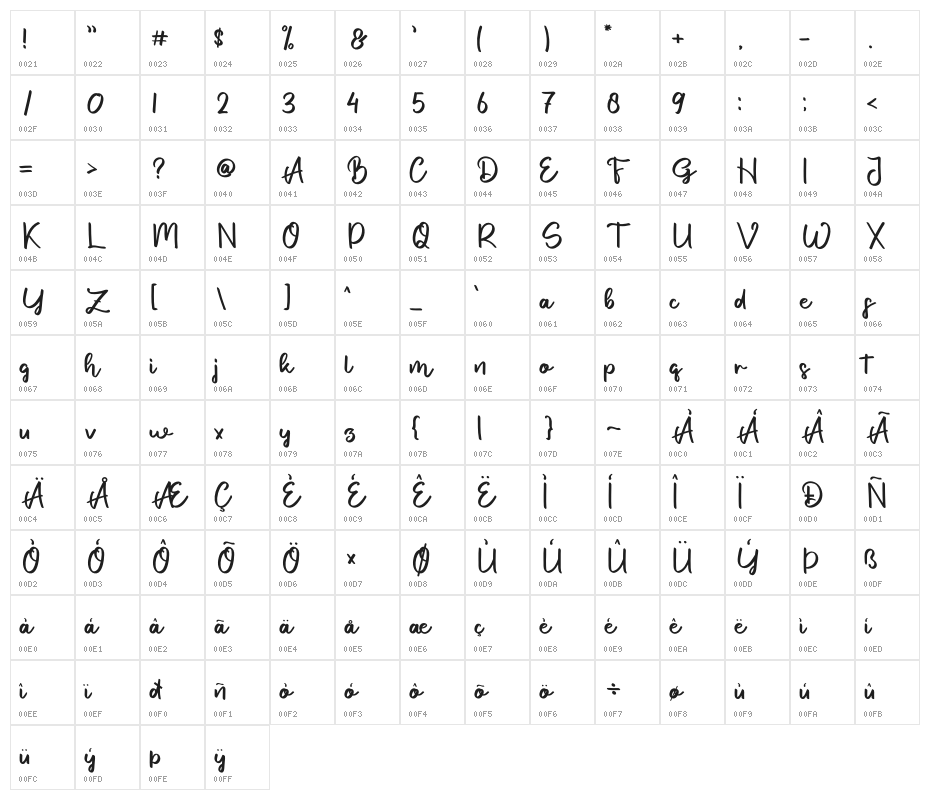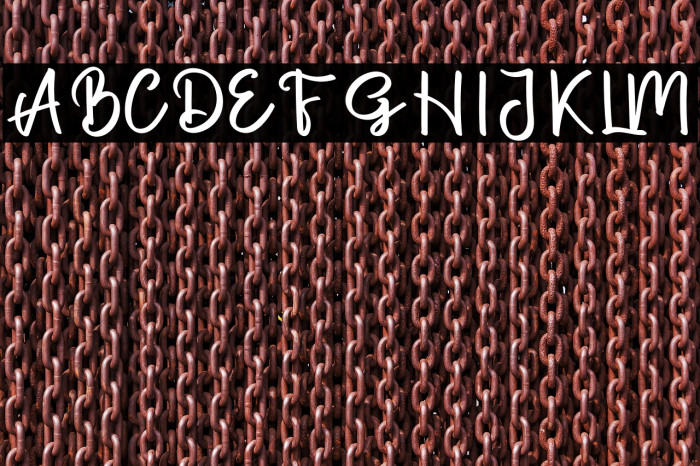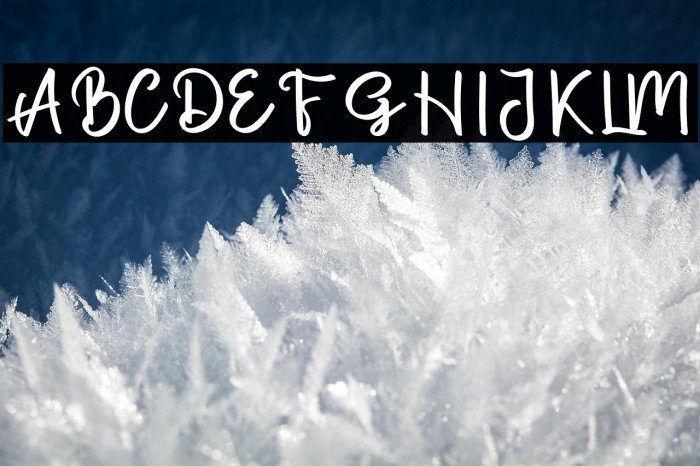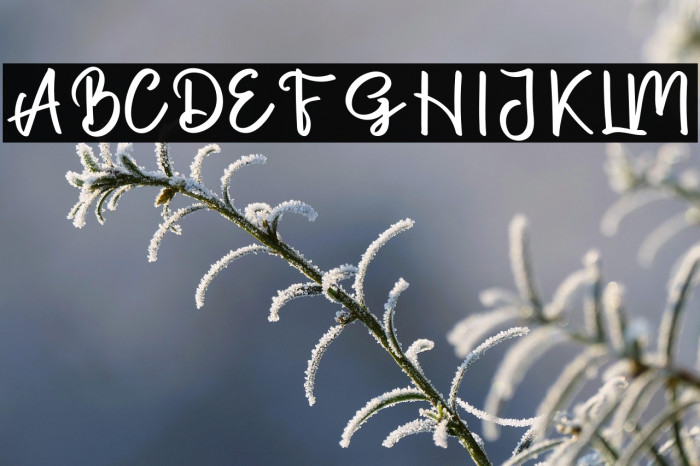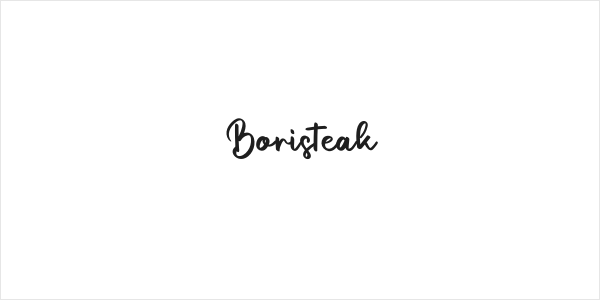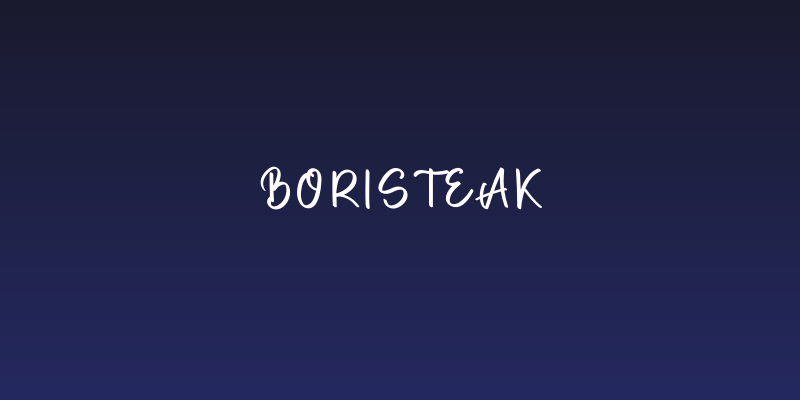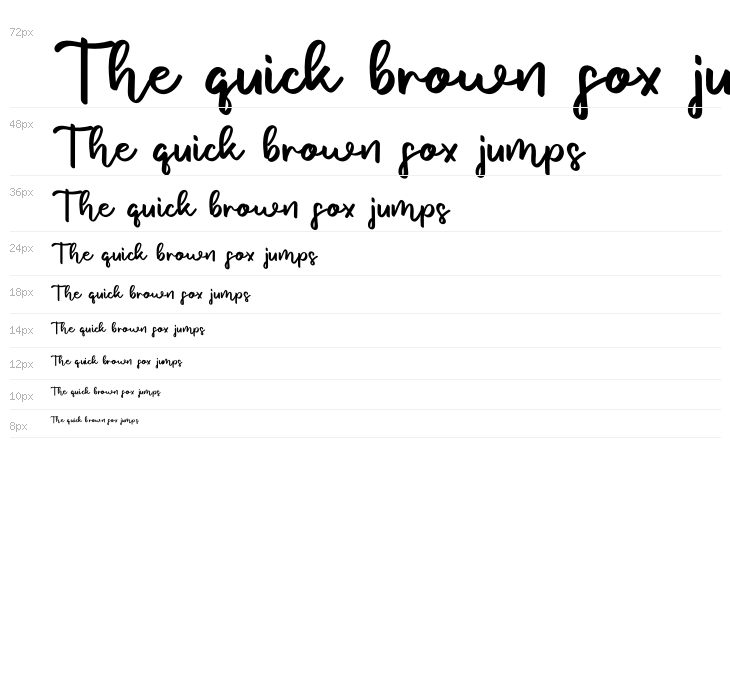
Boristeak Font
Boristeak Description
This font features a playful and casual handwritten style, characterized by its fluid and slightly irregular strokes. The uppercase letters are bold and expressive, with a slight slant that adds to the dynamic feel. The lowercase letters maintain a consistent flow, enhancing readability while retaining a personal touch. Numbers and special characters are crafted with the same lively energy, making them suitable for a variety of creative applications. The overall design is both approachable and stylish, perfect for projects that require a friendly and informal tone.
| Proposed Projects | Ideal for greeting cards, invitations, social media graphics, and personal branding. |